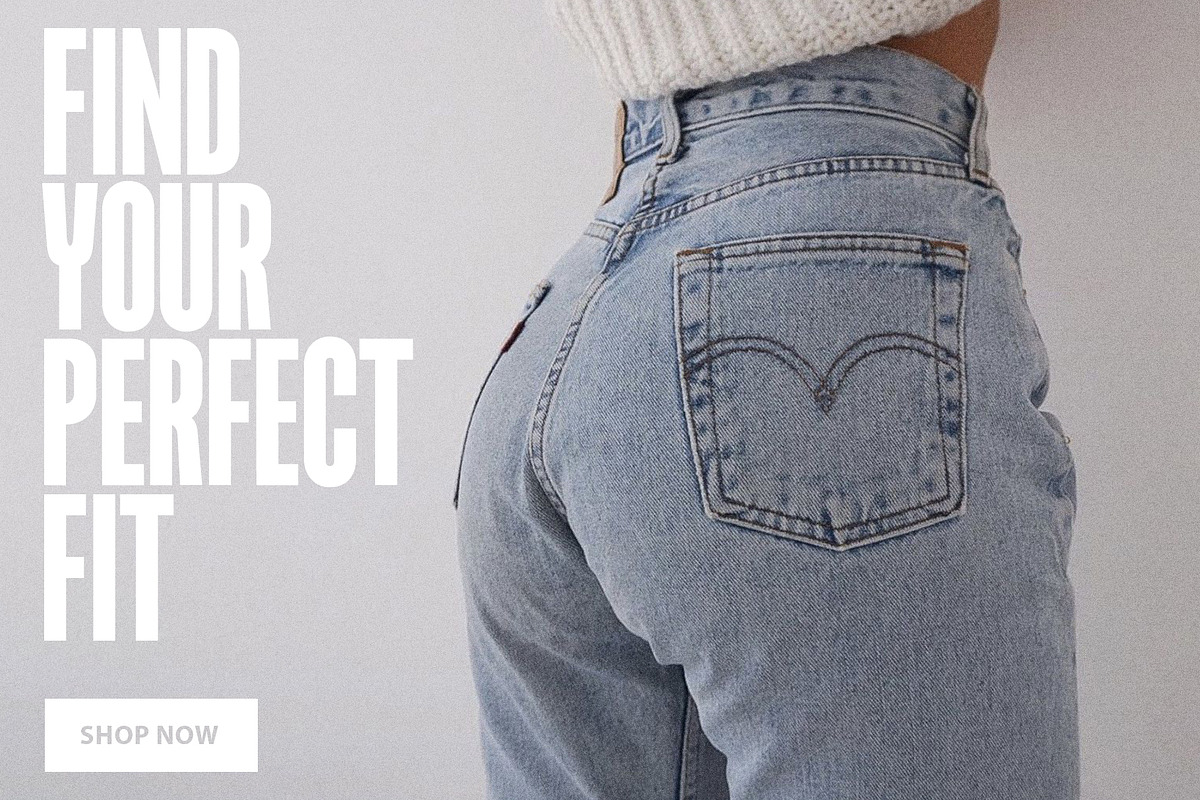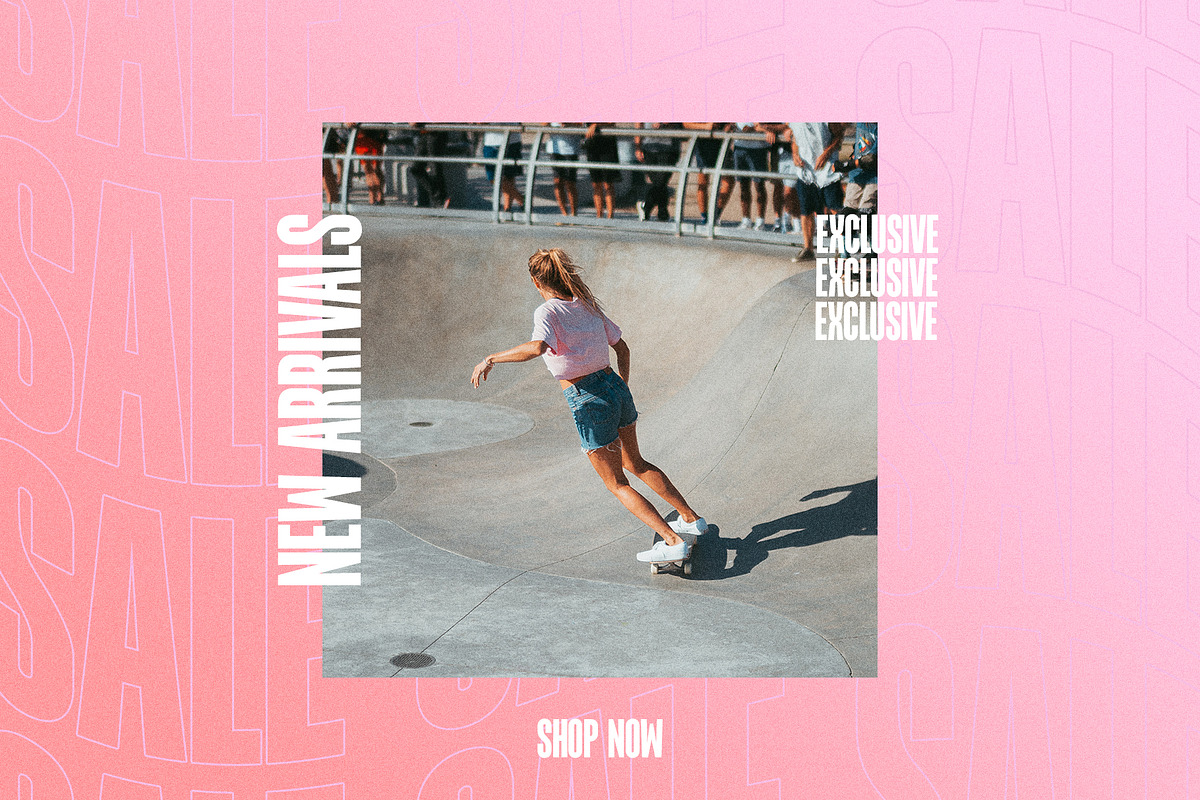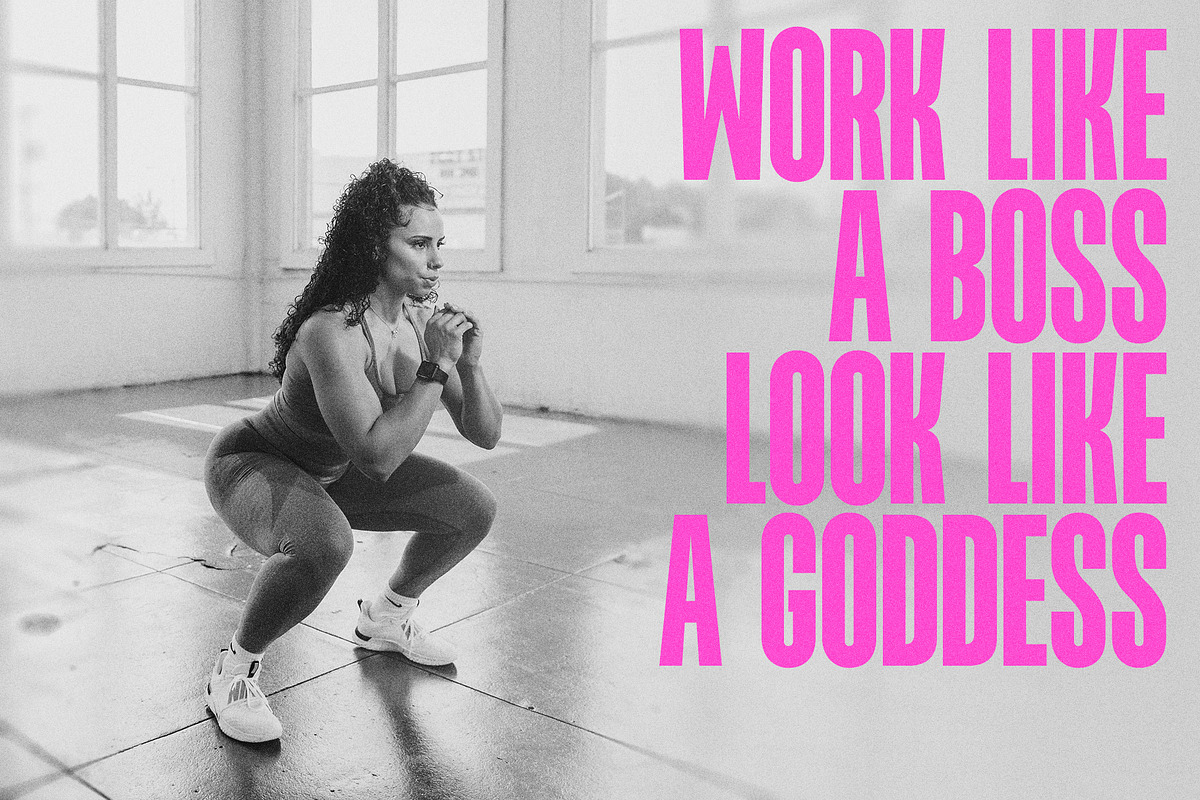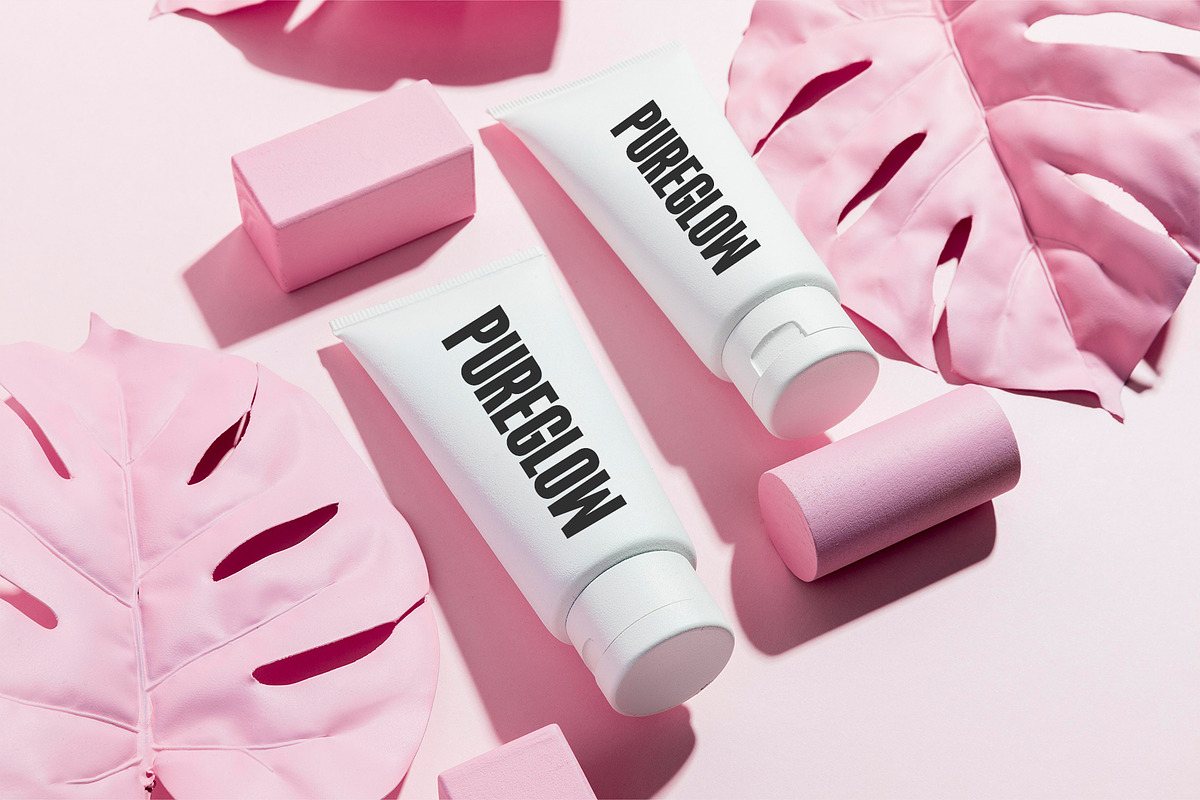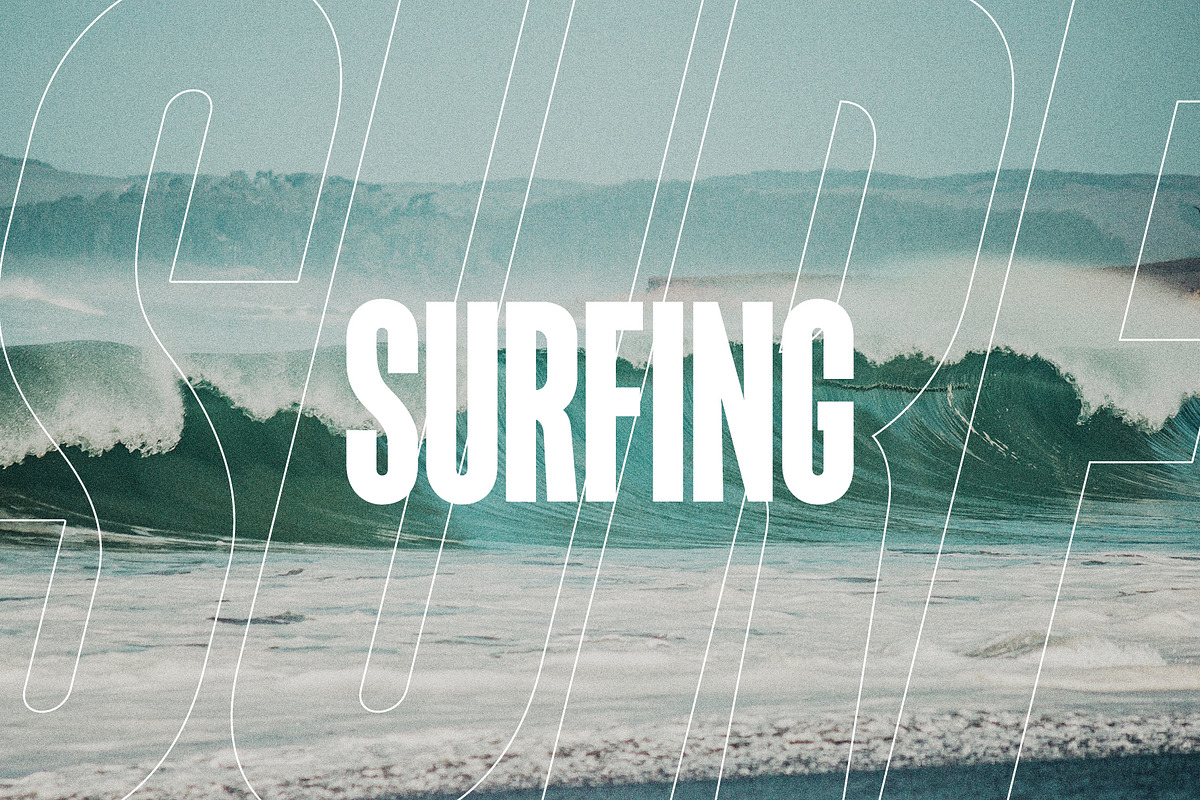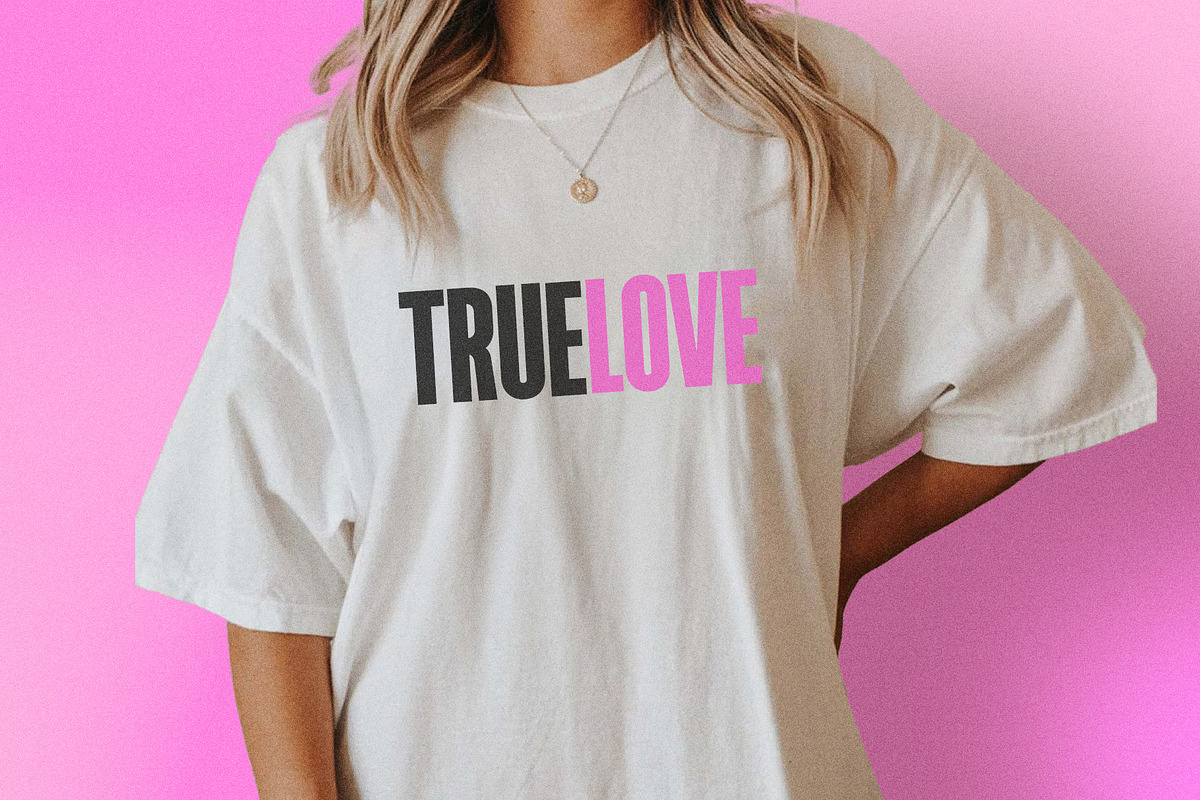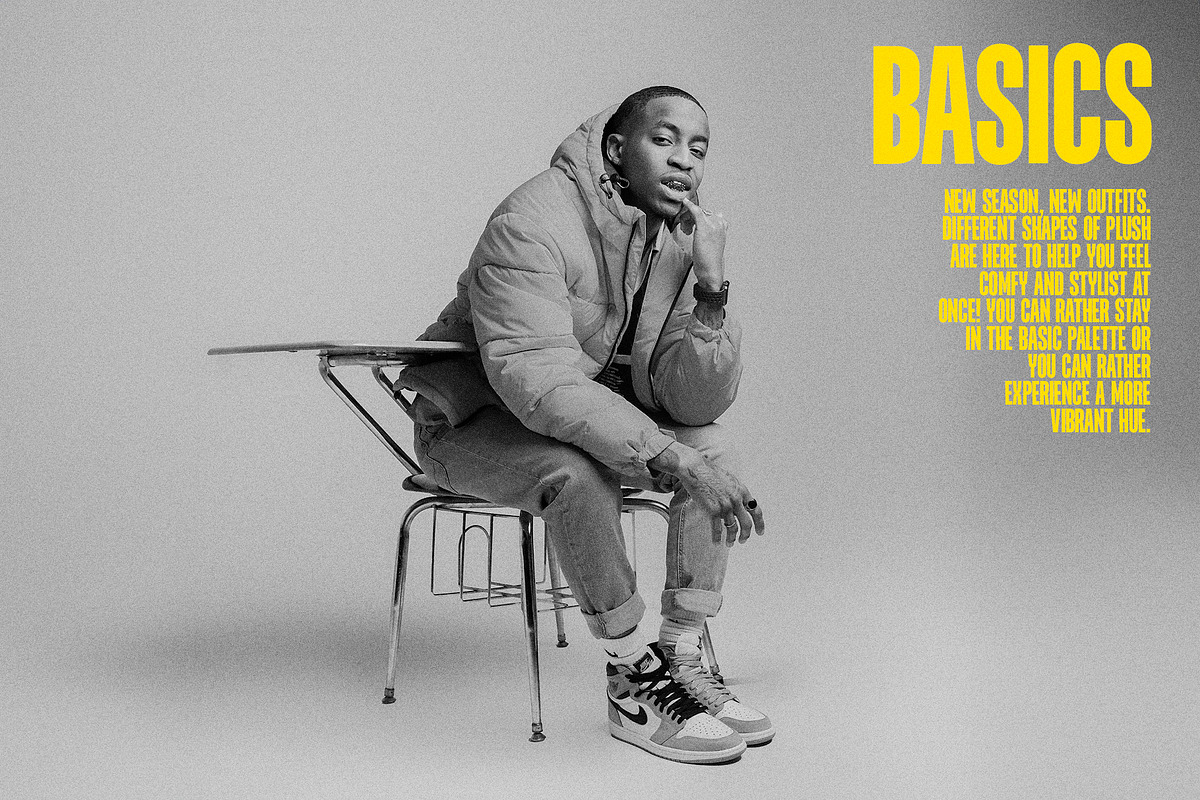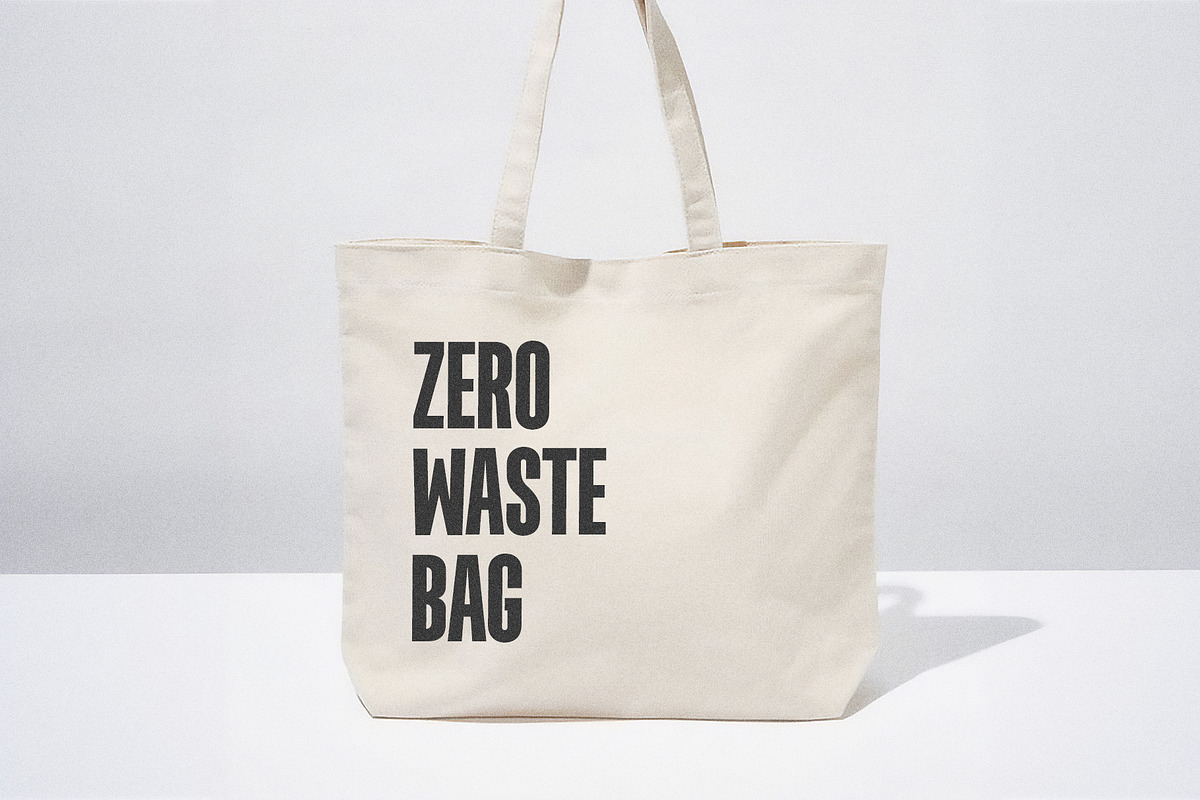
Robust bold condensed sans
Robust is a bold, condensed font inspired by the nostalgia and aesthetics of the early 90s. Ideal for advertising, headlines, editorial design, branding, and posters.
Robust Font Features:
- Full Set of standard alphabet and punctuation
- Multilingual Characters AÁĂÂÄÀĀĄÅÃÆBCĆČÇĊDÐĎĐEÉĚÊËĖÈĒĘẼFGĞĢĠḠHĦIIJÍÎÏİÌĪĮĨJKĶLĹĽĻŁMNŃŇŅÑ OÓÔÖÒŐŌØÕŒPÞQRŔŘŖSŚŠŞȘẞTŤŢȚUÚÛÜÙŰŪŲŮŨVWẂŴẄẀXYÝŶŸỲỸZŹŽŻ